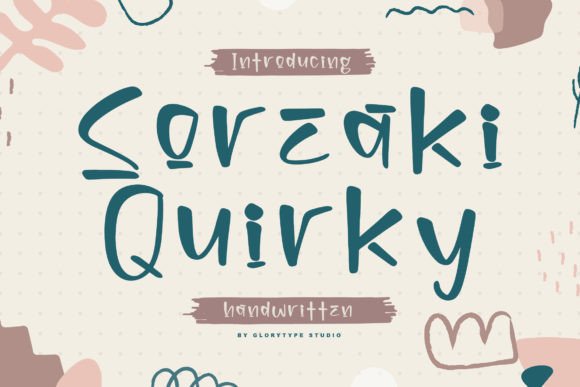
Prepare yourself to be captivated by the enchanting allure of Soreaki, a font family that radiates charm and playfulness. This remarkable script font, masterfully crafted by Glorytype Studio, possesses an undeniable vintage charm that will transport you back in time to an era of nostalgia and whimsy.
Immerse yourself in the world of Soreaki, where imagination runs wild and creativity knows no bounds. Whether you're a designer seeking to infuse your projects with a touch of whimsy or an individual longing to express your unique style, this font is your perfect companion.
With its playful curves and enchanting details, Soreaki breathes life into your designs. Its meticulously crafted characters exude a sense of nostalgia, evoking memories of simpler times when life was filled with wonder and delight.
Unleash your inner artist and let Soreaki guide you on an extraordinary journey of self-expression. Its versatility extends from playful invitations to eye-catching logos, making it the perfect choice for a multitude of design endeavors.
Embrace the magic of Soreaki and let its enchanting allure transform your creative visions into captivating realities. Dive into a world of nostalgia and whimsy, where charm and playfulness dance together in perfect harmony.